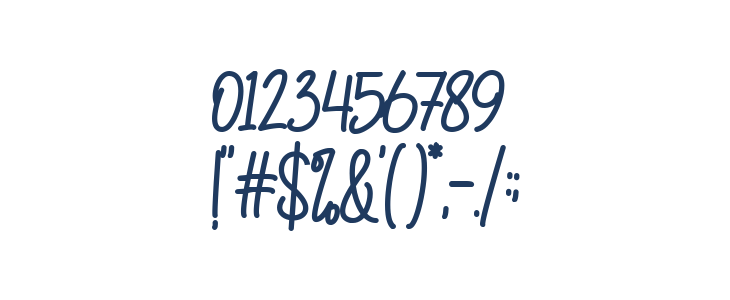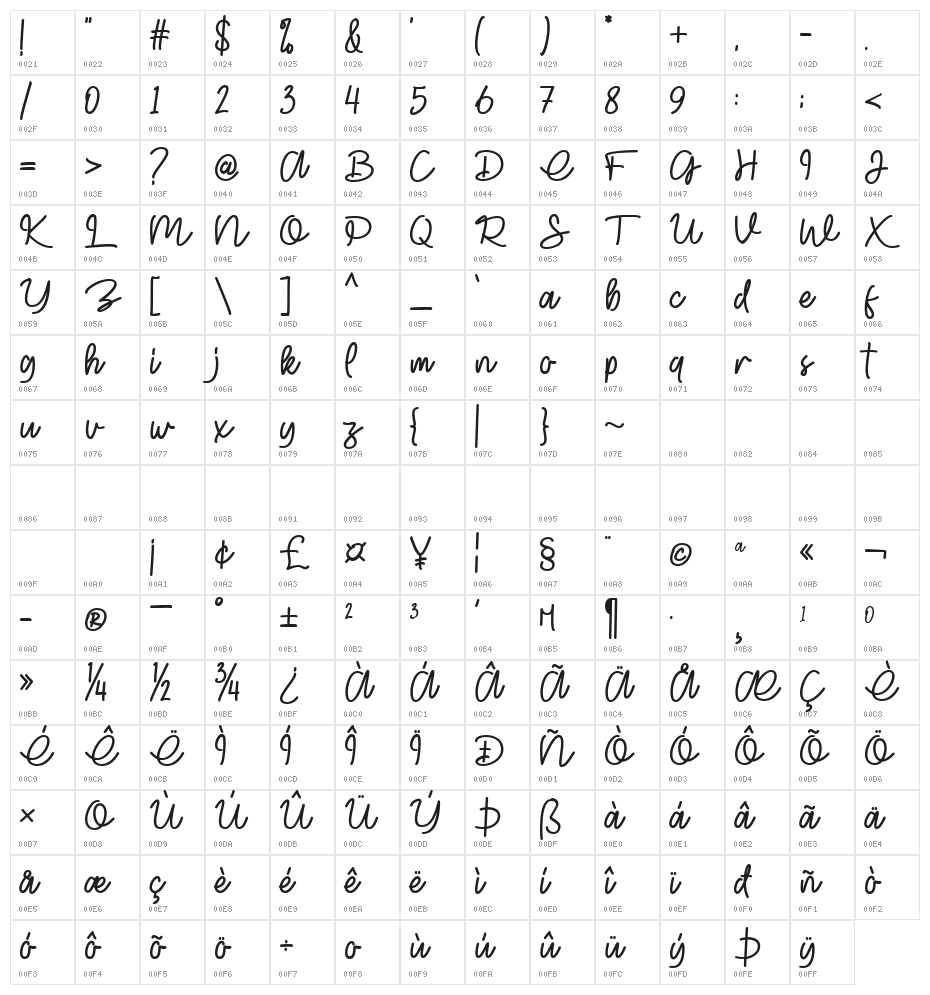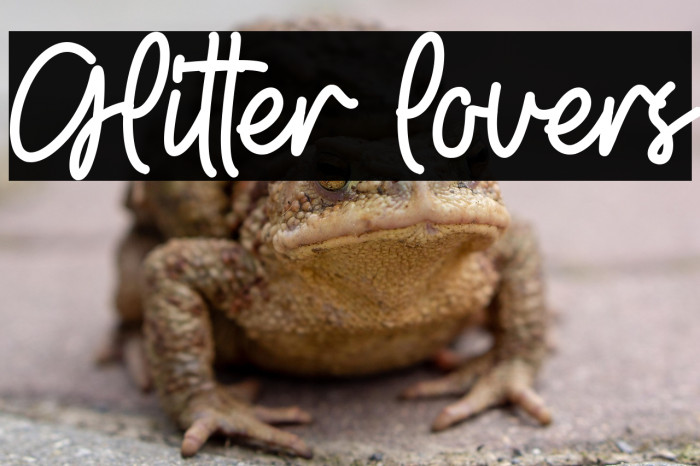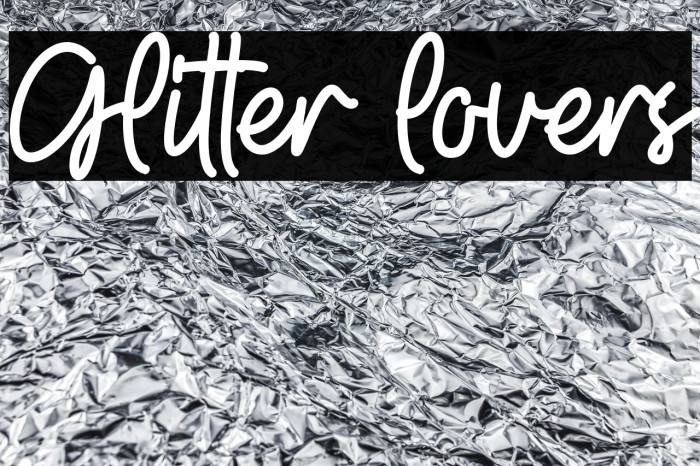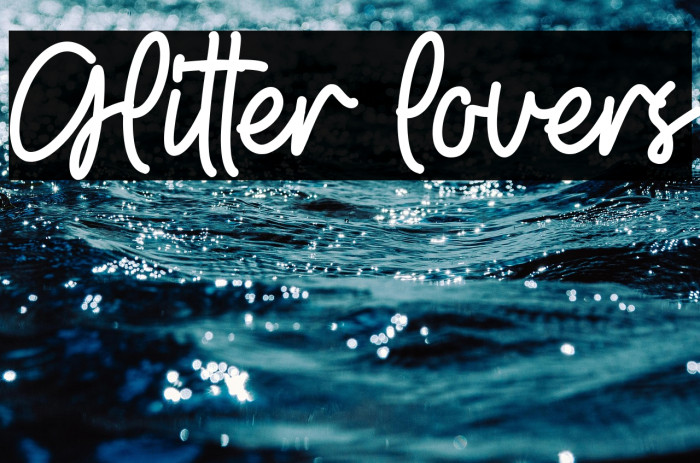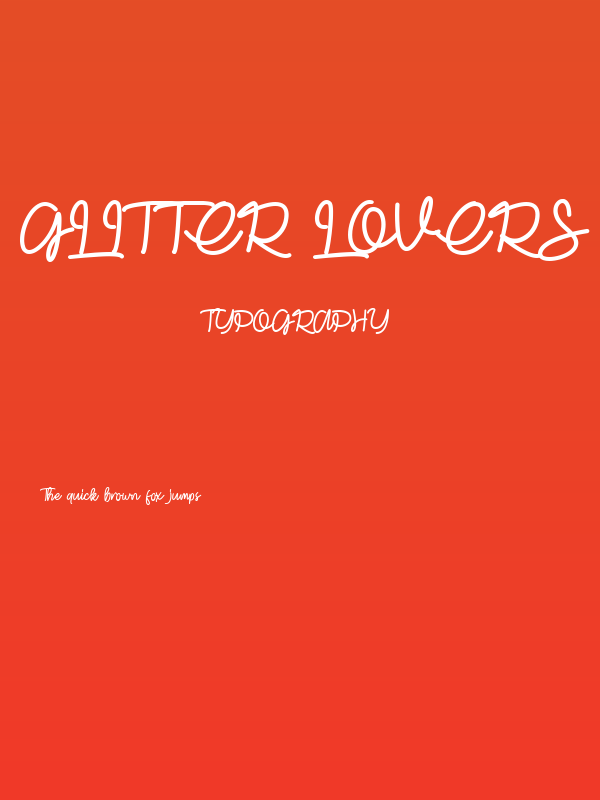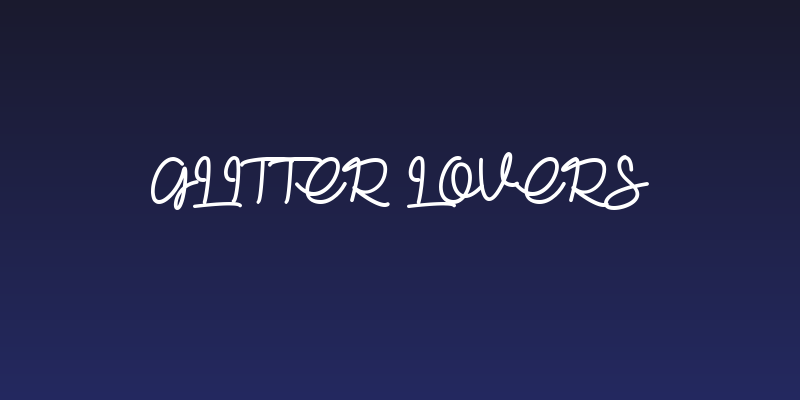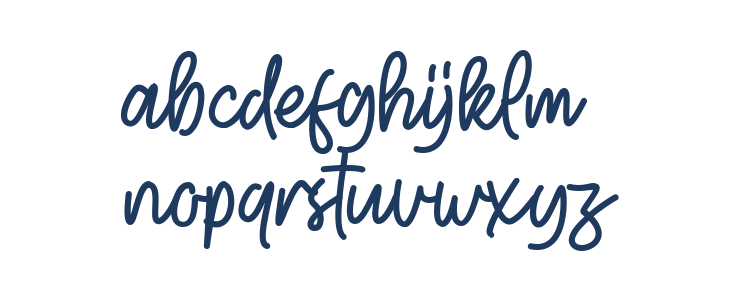
Glitter lovers Font
Glitter lovers Description
This font exudes a playful and energetic vibe with its handwritten style. The letters are crafted with a smooth, flowing script that mimics the natural movement of handwriting. Each character is connected, creating a sense of continuity and fluidity. The uppercase letters maintain a consistent height, while the lowercase letters vary slightly, adding to the casual and relaxed feel. The numbers and special characters are designed to match the overall style, ensuring a cohesive look. This font is perfect for projects that require a personal touch, such as invitations, greeting cards, or branding materials that aim to convey warmth and approachability.
| Use Case | Logos, Invitations, Greeting cards |
| Proposed Projects | Ideal for invitations, greeting cards, personal branding, and creative projects. |